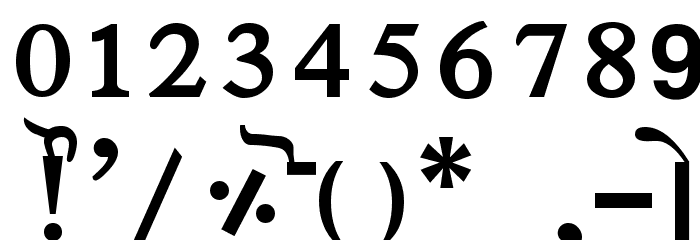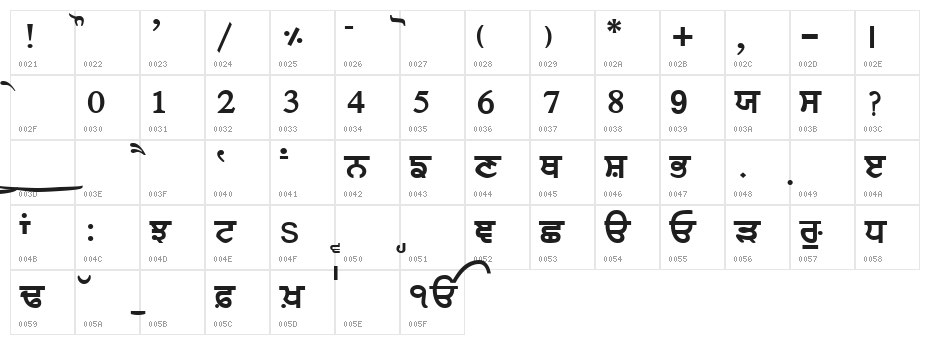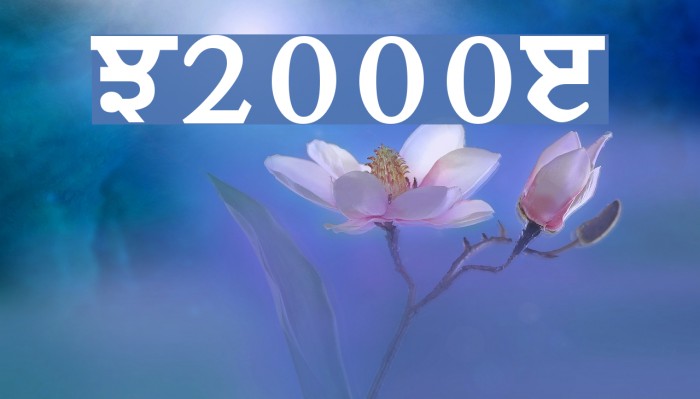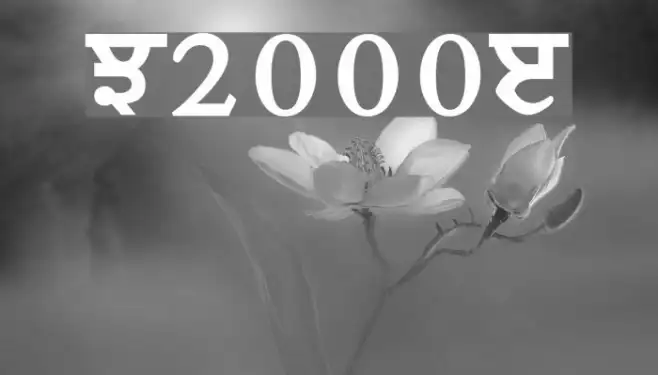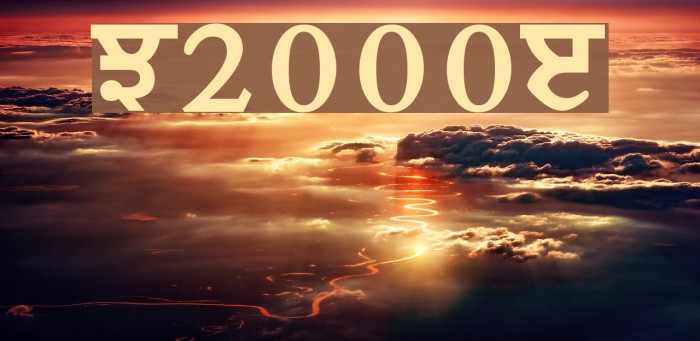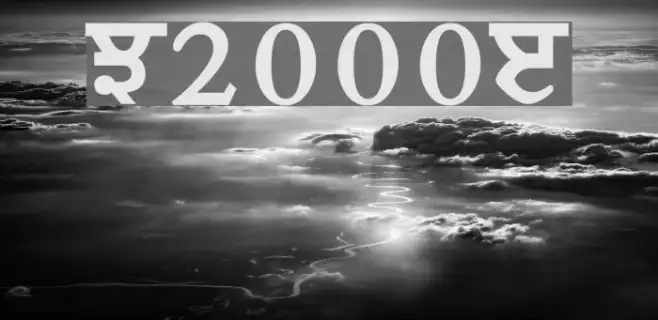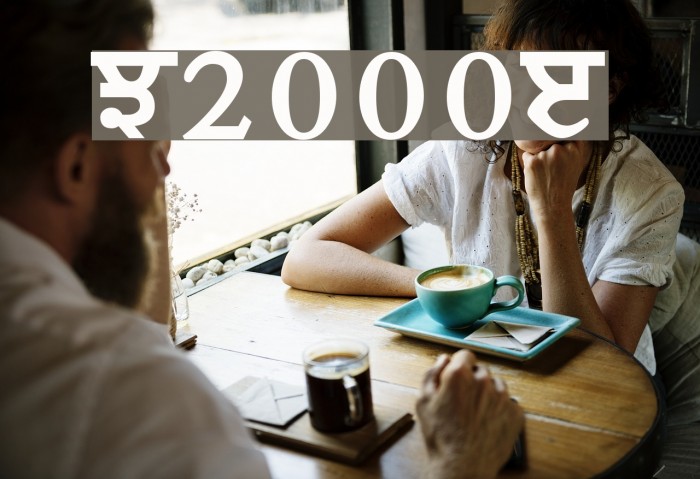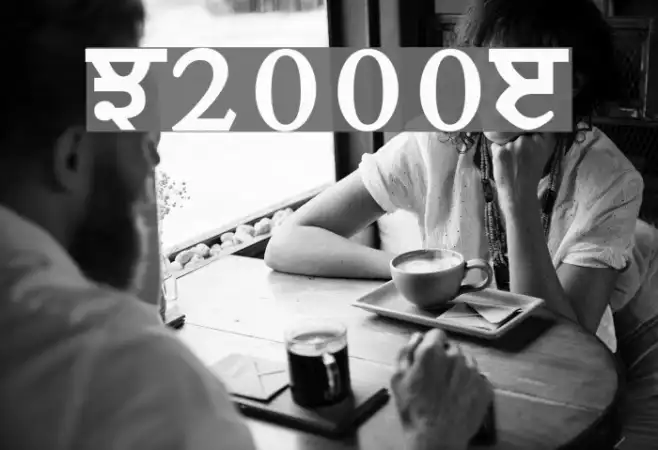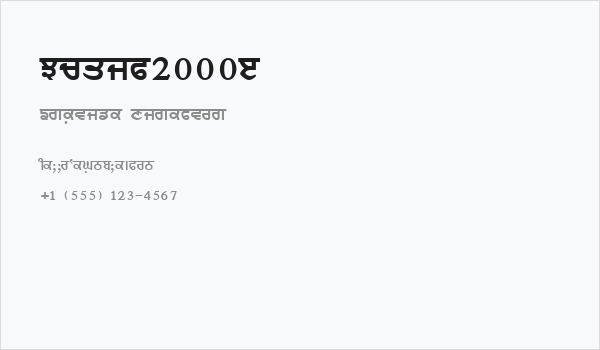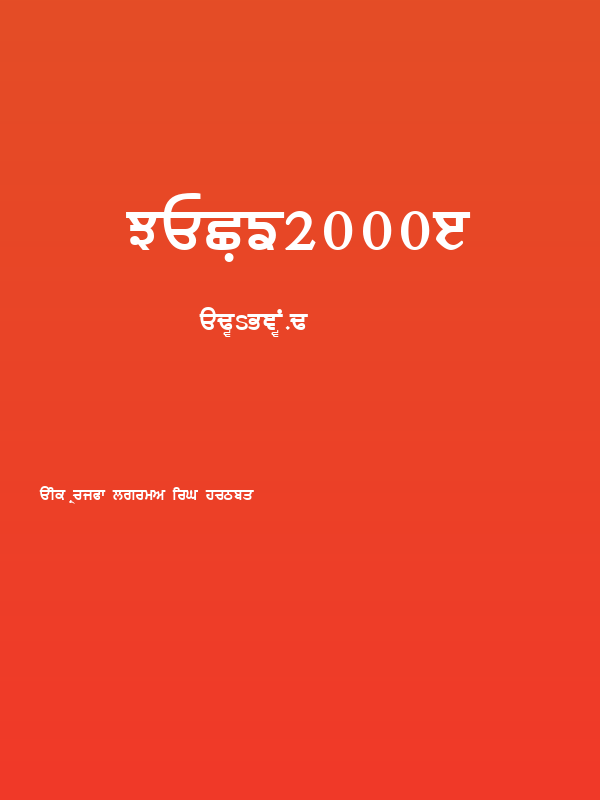
Music2000J Font
Music2000J Description
This font features characters from the Gurmukhi script, used primarily for writing the Punjabi language. The design is bold and clear, with a modern touch that enhances readability. The characters are well-defined, with a consistent stroke width that provides a uniform appearance. The numerals and special characters are designed to complement the script, maintaining the overall aesthetic. The font's style is both functional and visually appealing, making it suitable for various applications.
| Use Case | Headlines, Educational Materials, Signage |
| Proposed Projects | Ideal for educational materials, signage, and digital content in Punjabi. |